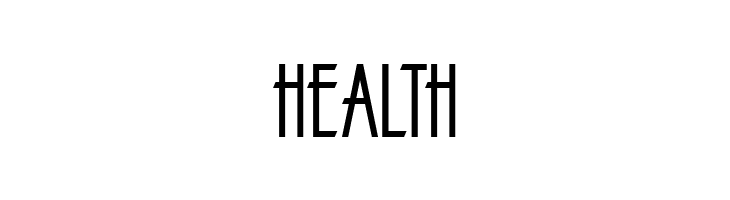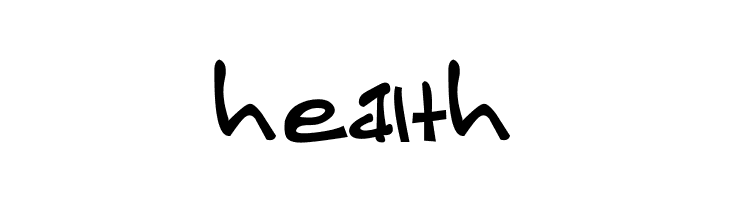
A cursive, handwritten-style font with elegant, flowing characters.
A graceful script font with flowing, interconnected characters and delicate strokes.
A playful, hand-drawn font with tall, narrow letters and rounded edges.
A bold, flowing script font with elegant curves and medium contrast.
A playful, flowing script font with smooth, connected strokes.
A bold, rounded font with a playful and friendly style.
Elegant, flowing script with a handwritten style.
A sophisticated serif font with high contrast and elegant serifs.
A bold, brush-style font with a dynamic, hand-drawn appearance.
An elegant and flowing script font with intricate, decorative letterforms.
A bold, jagged font with a horror-themed, distressed appearance.
A bold, jagged font perfect for spooky, dramatic themes.
A bold, jagged font with a horror-themed, distressed aesthetic.
A bold, jagged font with an eerie, unsettling style.
A playful, star-studded decorative font with a whimsical and friendly style.
A bold, brush-textured font with a rugged and dynamic appearance.
A bold, condensed, and modern font ideal for impactful headlines.
A modern, geometric font with rounded edges and a clean, streamlined appearance.
A bold, textured font with a distressed, vintage style.
A playful, bold font with rounded, bubbly characters perfect for fun designs.
A bold, playful font with thick, uneven strokes and a hand-drawn feel.
A bold, expressive handwritten font with dynamic strokes and a playful yet assertive style.
Geometric sans-serif font with decorative circular borders.
A decorative font with medical-themed icons and symbols.
Hand-drawn woodcut-style medical icon set.
A novelty dingbat font with detailed medical-themed icons.
A playful, eclectic font with bold, varied characters and a whimsical style.